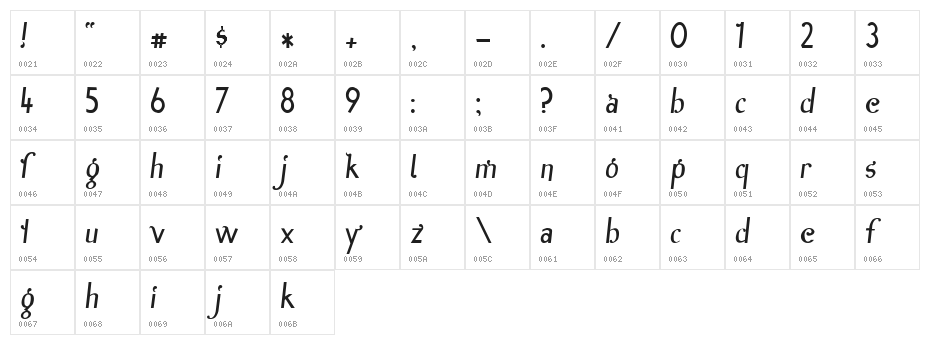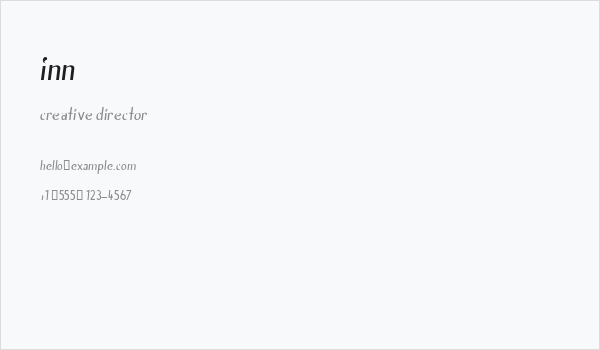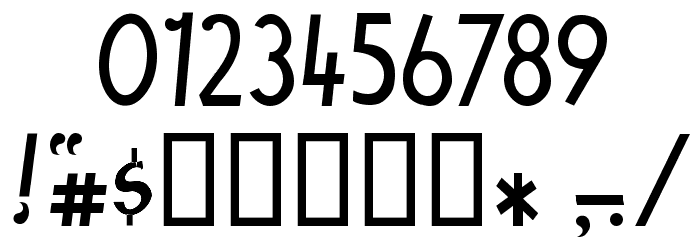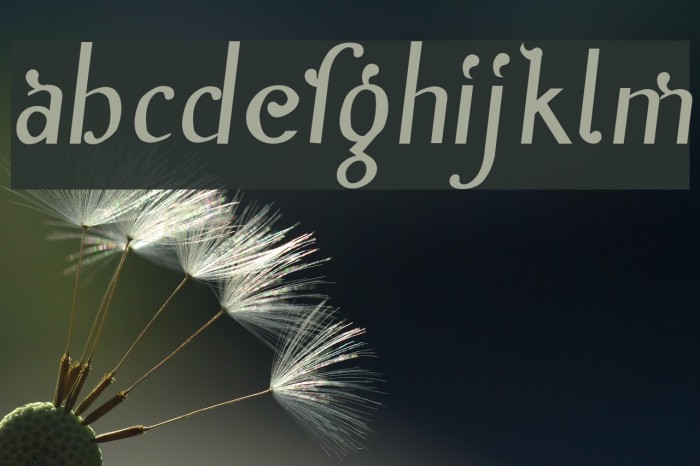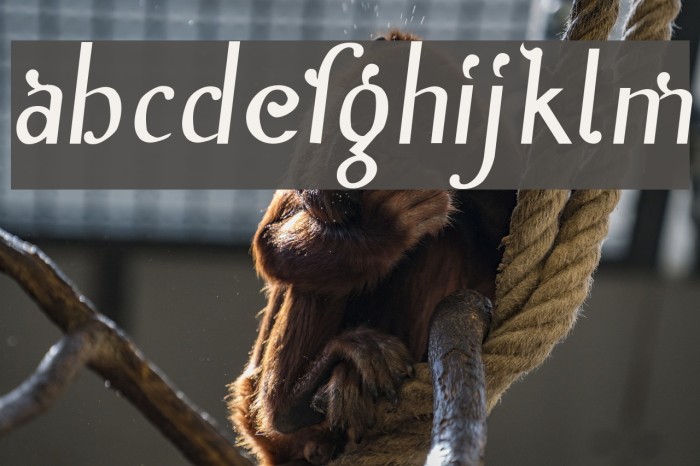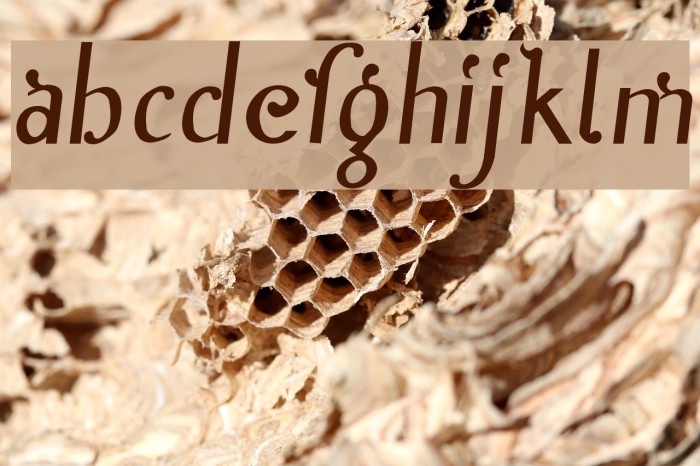
Inn Font
Inn Description
This font features a unique blend of classic and modern elements, with a distinct slant that gives it an italicized appearance. The characters are elegantly curved, with a playful yet sophisticated style. The uppercase letters maintain a consistent height, while the lowercase letters exhibit a charming variation in their ascenders and descenders. The numerals are clean and easily readable, complementing the overall aesthetic. Special characters are included, adding versatility to the font's usage. The design is both decorative and functional, making it suitable for a variety of creative projects.
| Use Case | Logos, Invitations, Editorial Design |
| Proposed Projects | Ideal for branding, invitations, editorial design, and creative projects that require a touch of elegance. |